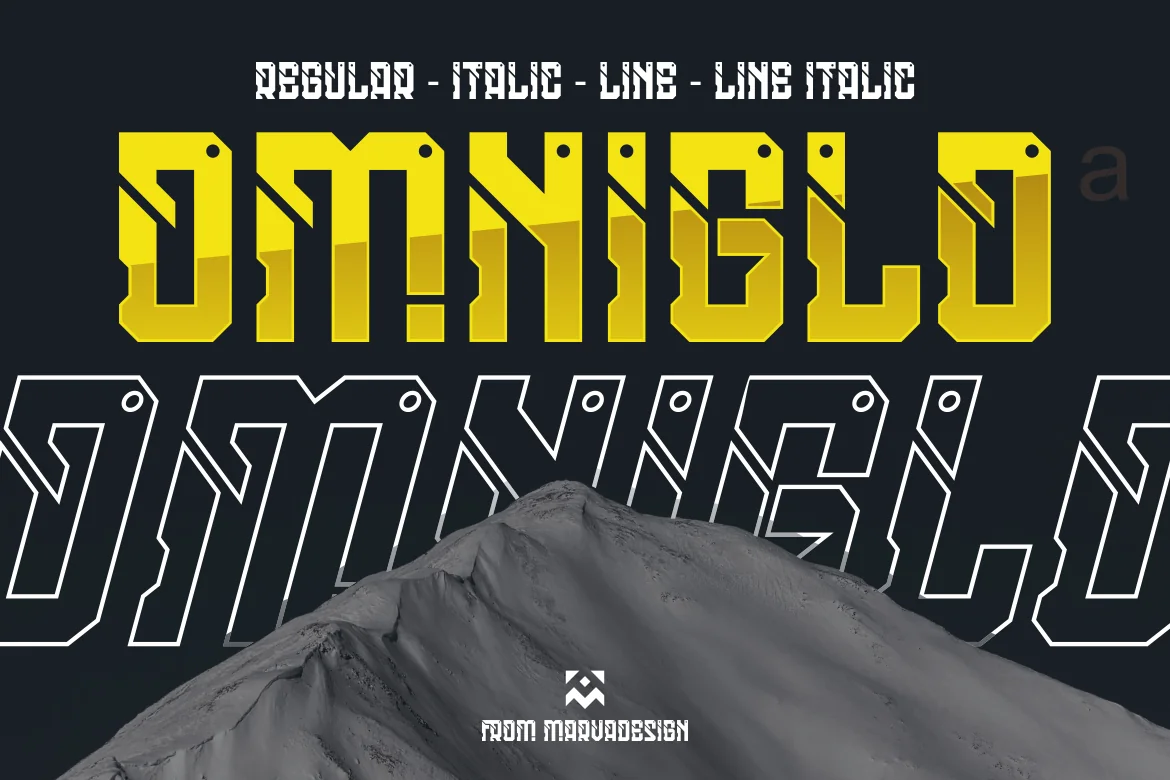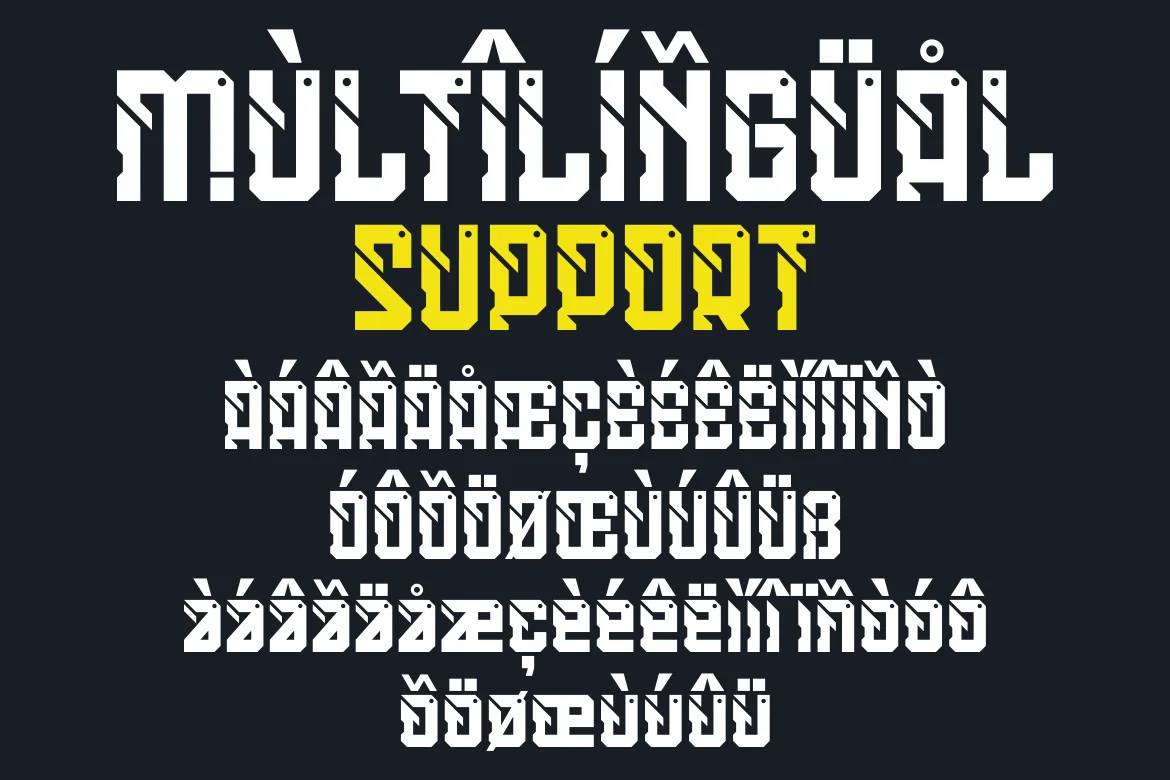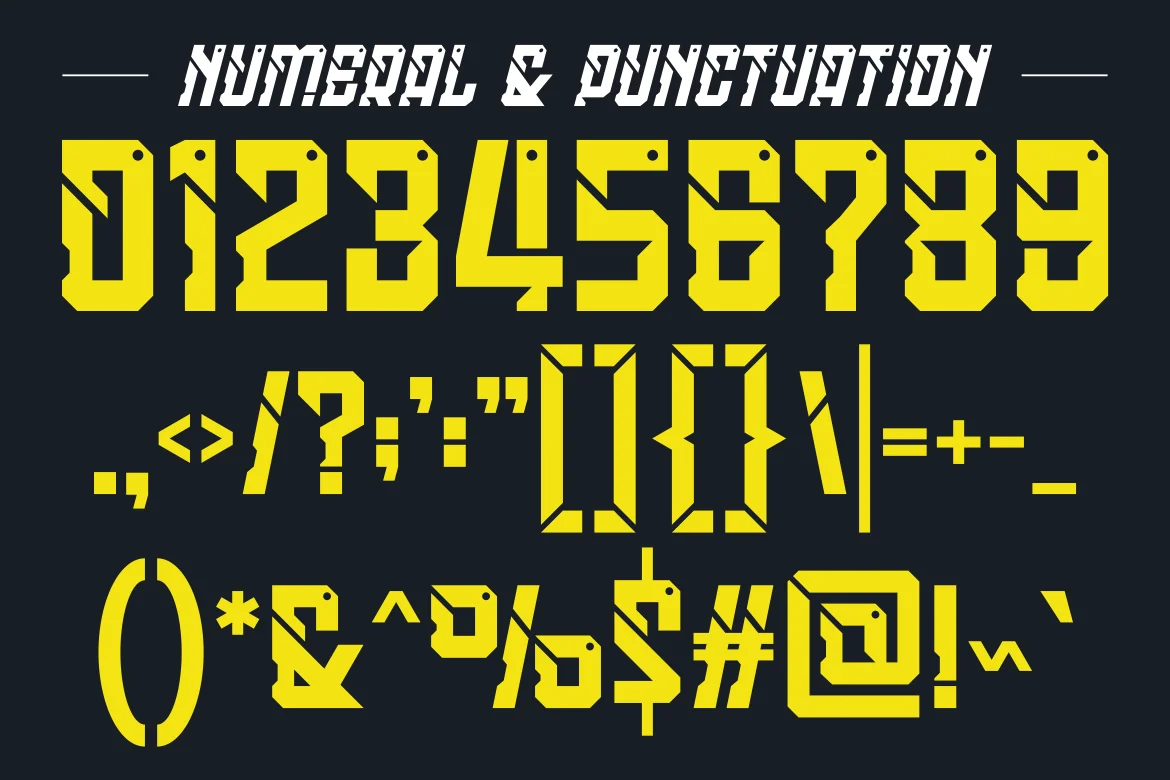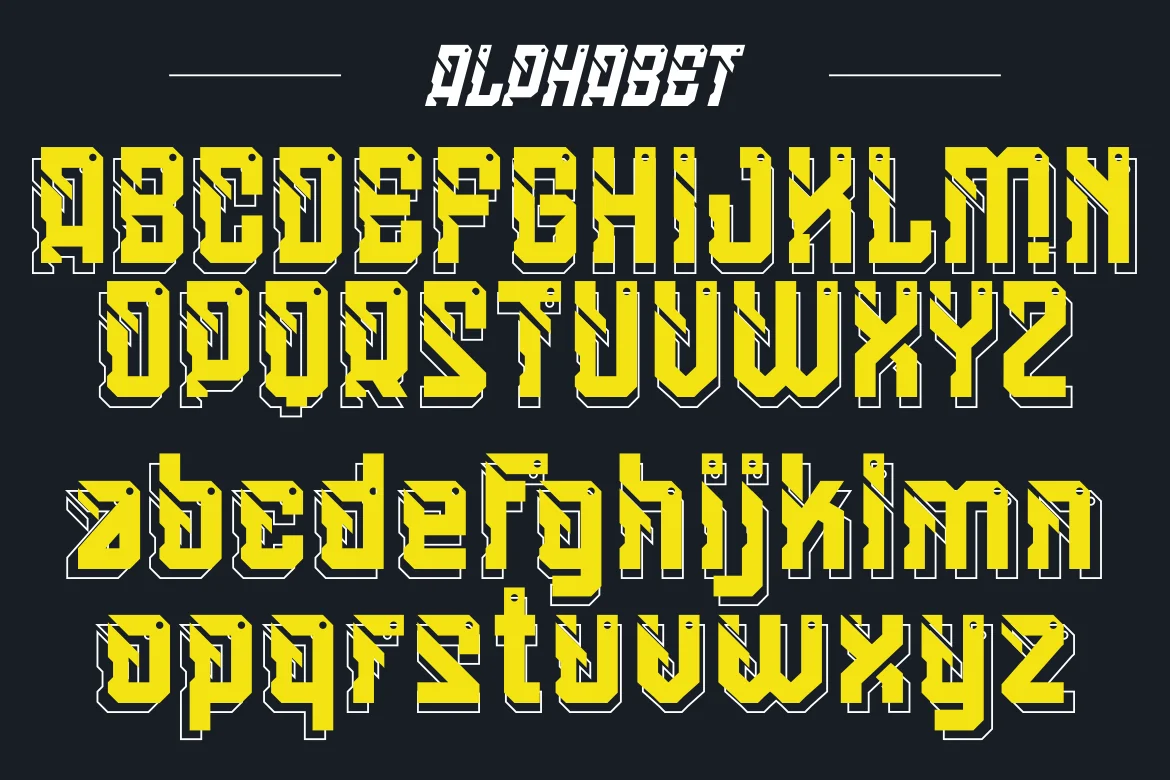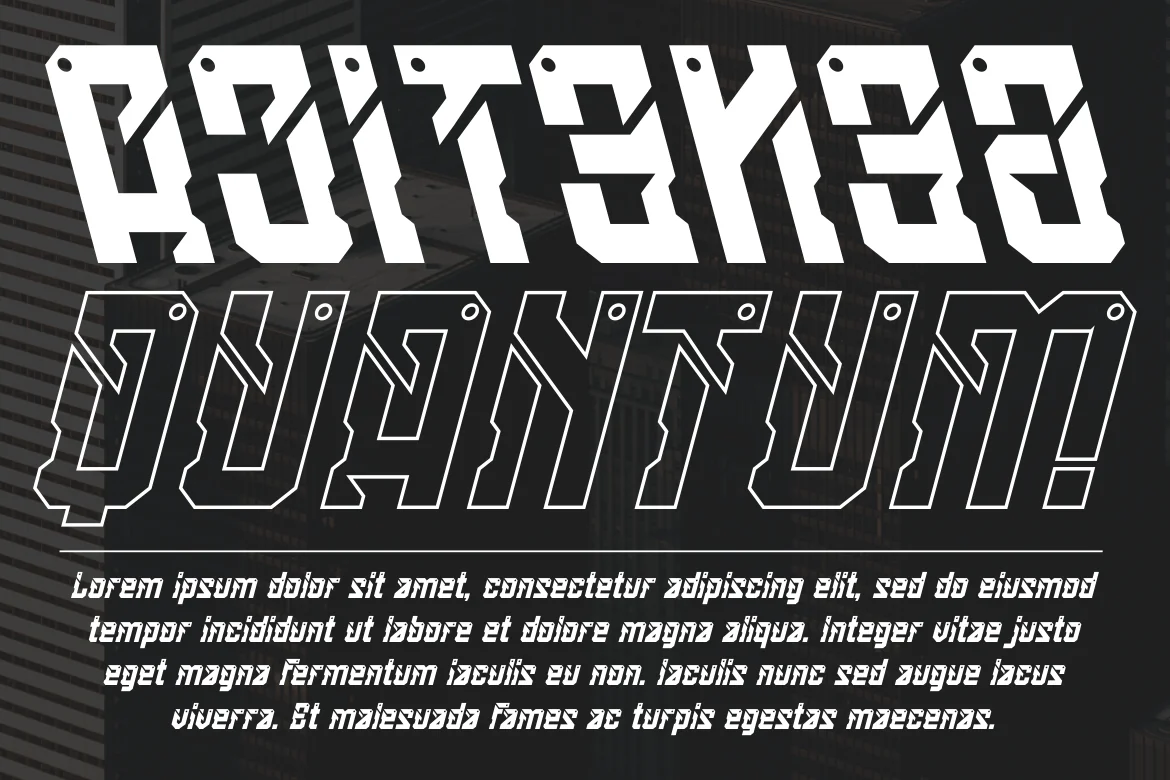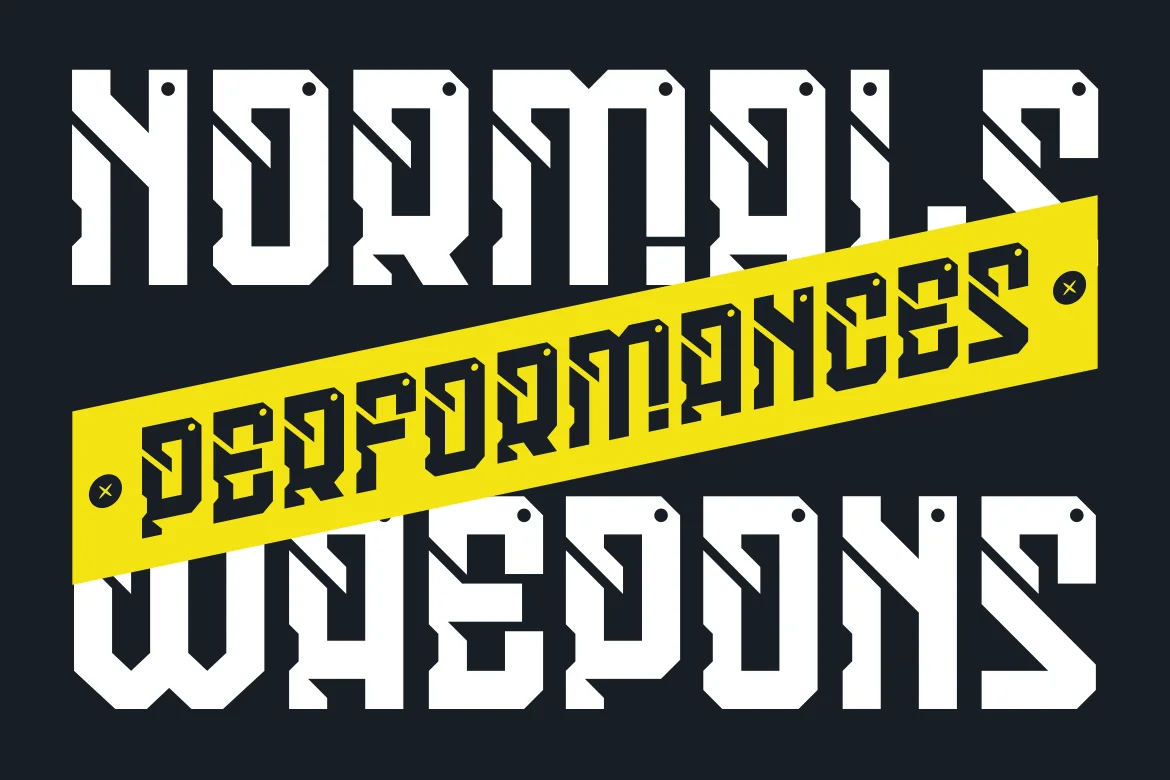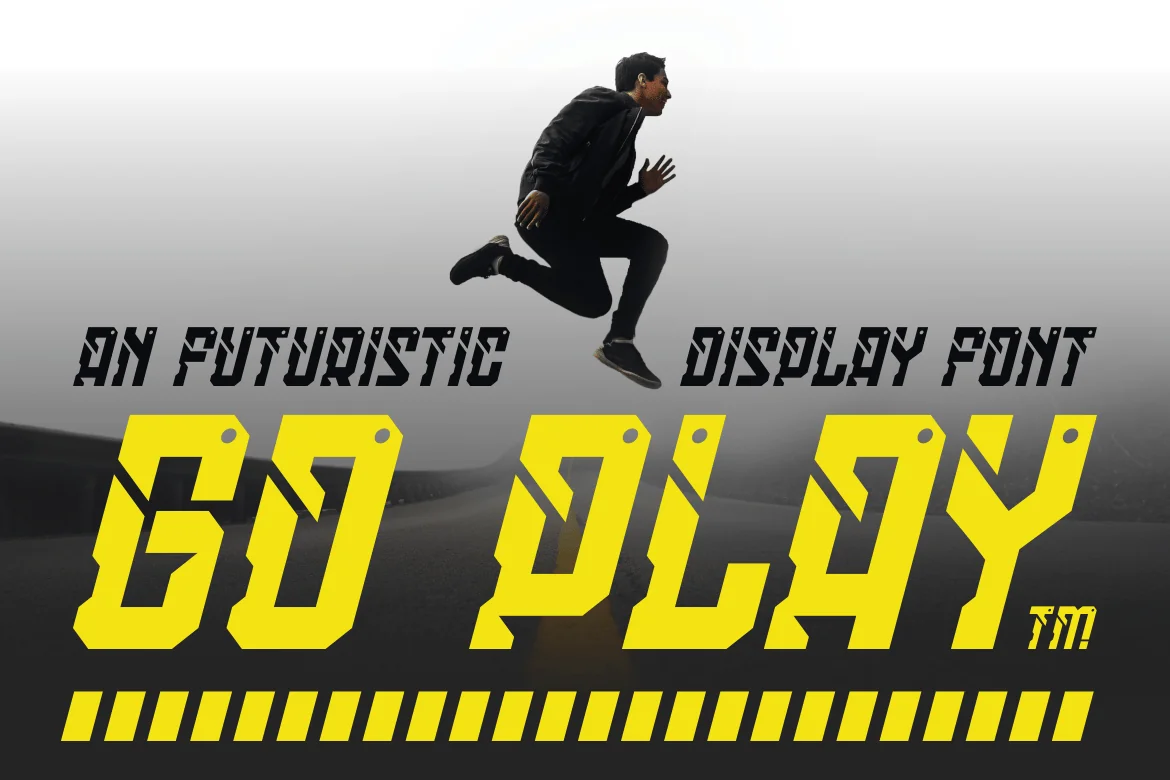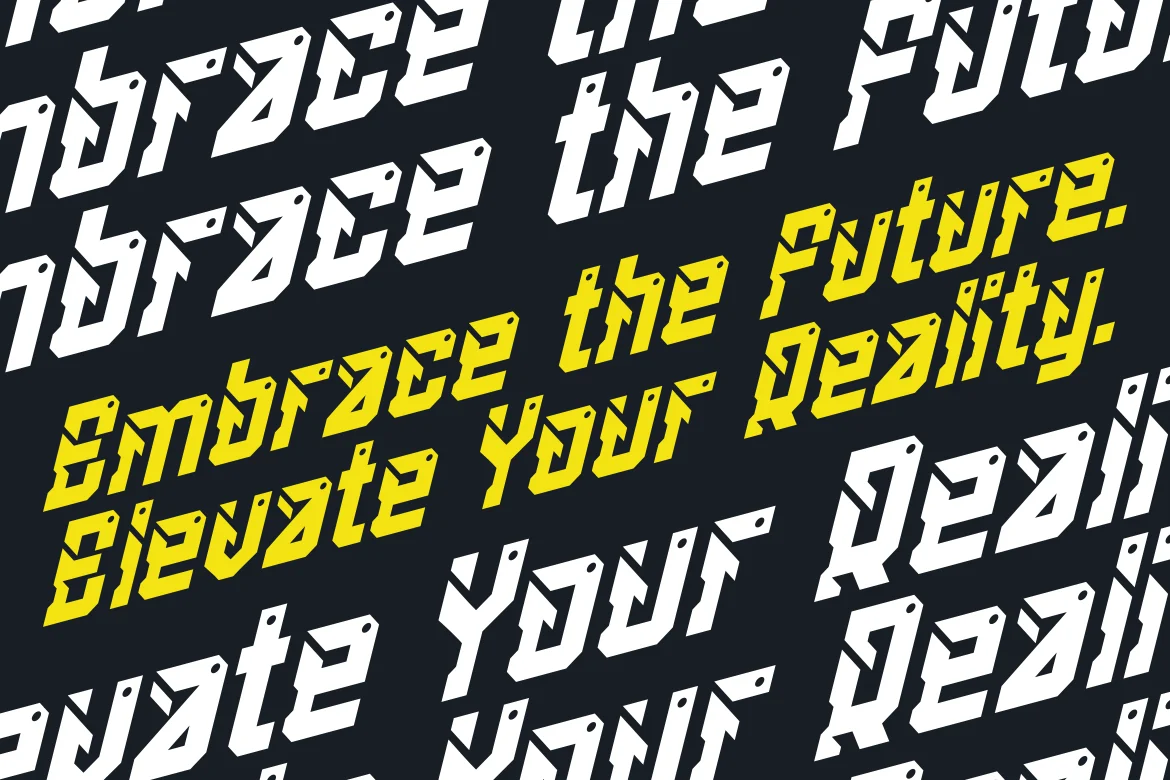
OMNIGLO – A Modern Futuristic Font
Introducing our new product OMNIGLO Font – Modern Font
OMNIGLO Font** – Modern Font is a bold and authentic display font. The font is suitable for any branding project like logo, Template Design, Product and many more. outstanding in a wide range of contexts.